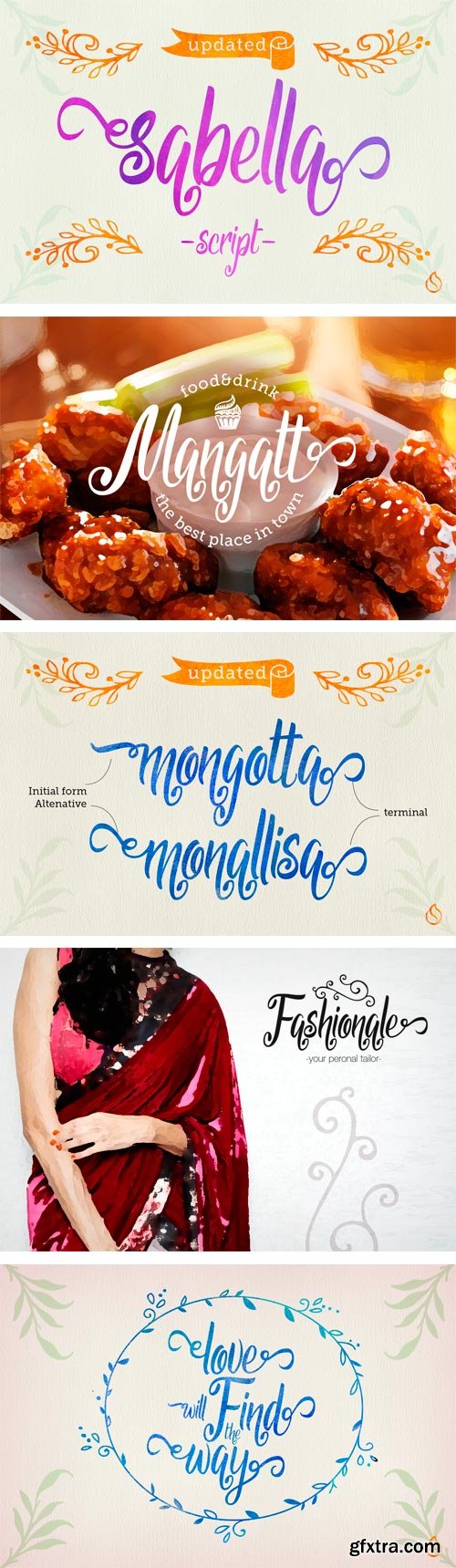
- The Sabella font is the hand lettering font that can be use for various purposes such as headings, signature, logos, t-shirt, letterhead, signage, lable, news, posters, badges etc. The Sabella font comes up with the alternative characters which can be accessed by using OpenType programs such as Adobe Illustrator and Adobe InDesign.